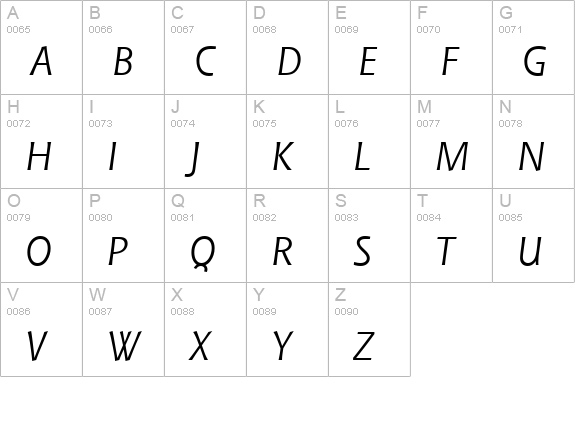
Shannon ATT Italic Font Details
Shannon ATT Italic is a distinctive, italic variant in the Shannon typeface family \xE2\x80\x94 well suited to design and typography projects.
Introducing Shannon ATT Italic, a captivating and elegant font that effortlessly adds a touch of sophistication to any creative project. With its sleek and refined design, this font is perfect for elevating your branding, packaging, invitations, and more. Shannon ATT Italic stands out from the crowd with its unique and graceful italicized letterforms. Each character flows seamlessly, creating a harmonious and visually pleasing composition. Its delicate curves and precise detailing make it a versatile choice for both digital and print mediums. But what sets Shannon ATT Italic apart is that it is freely available for download at FontsMarket.com, making it accessible to designers, artists, and enthusiasts alike. This font can be easily obtained, allowing you to explore its limitless potential without any barriers. Whether you're looking to add a touch of elegance to a wedding invitation, create a sophisticated logo for a high-end brand, or craft a visually captivating website, Shannon ATT Italic is the perfect choice. Its versatility and timeless appeal ensure that your designs will leave a lasting impression on your audience. Don't miss out on the opportunity to enhance your creative projects with Shannon ATT Italic. Download it for free at FontsMarket.com and unlock a world of endless design possibilities.